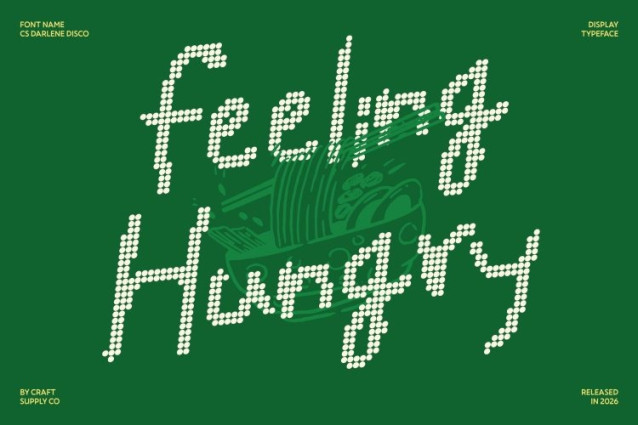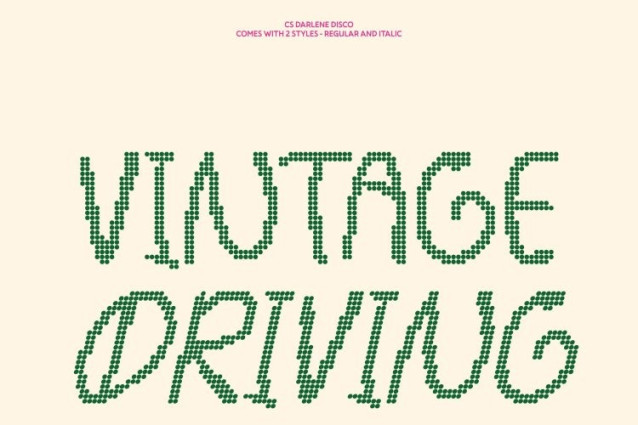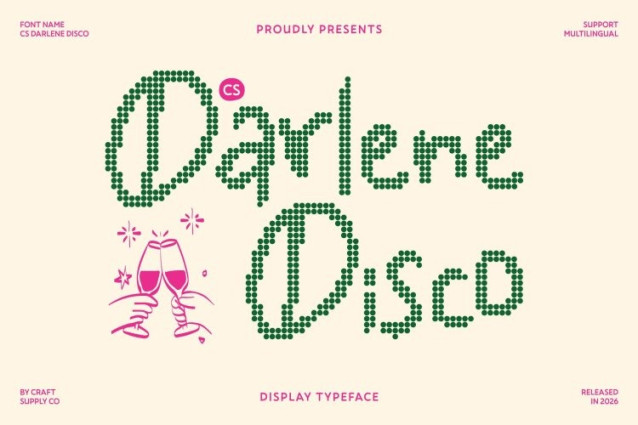
CS Darlene Disco Font
CS Darlene Disco Font is a bold handwritten display font that embraces imperfection with unapologetic confidence, now enhanced with a lively disco-inspired dotted texture. Designed as a “bad” handwritten style, it features overflowing ink strokes, quirky shapes, and uneven lines that feel spontaneous and expressive. The added dotted disco effect introduces a playful sparkle, transforming its rough character into something vibrant and visually exciting.
Playful Imperfection with Shimmering Personality
The intentionally messy and irregular forms give this font its carefree charm. Each letter feels freely drawn, celebrating individuality and creative freedom. With the disco-style dots adding rhythm and brightness, the font gains an extra layer of visual energy turning raw imperfection into a joyful, attention-grabbing statement.
Energetic, Friendly, and Unapologetically Expressive
Despite its rebellious style, this font maintains a friendly and approachable personality. The combination of expressive strokes, irregular forms, and sparkling dotted texture creates typography that feels lively, youthful, and full of motion perfect for designs that want to feel bold, authentic, and playful.
Perfect for Youthful and Casual Creative Projects
Ideal for youth branding, greeting cards, posters, casual packaging, and expressive social media graphics, this font transforms simple text into vibrant visual expression. Its chaotic charm and disco sparkle make it a great choice for designers who want their typography to feel energetic, unconventional, and full of personality.